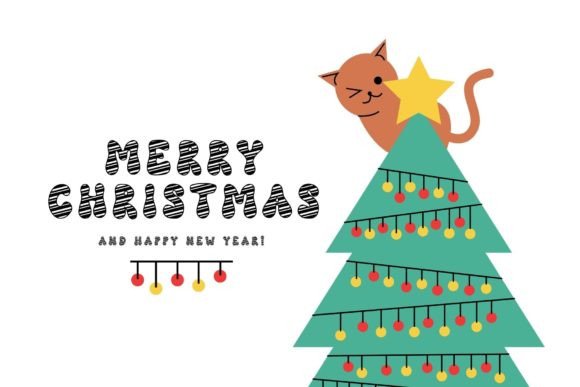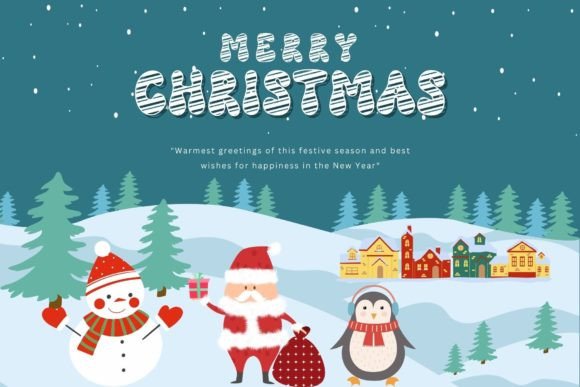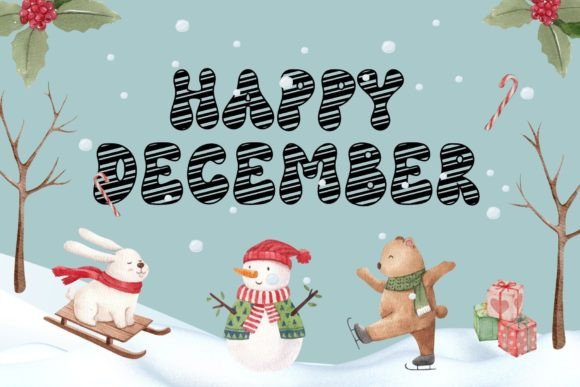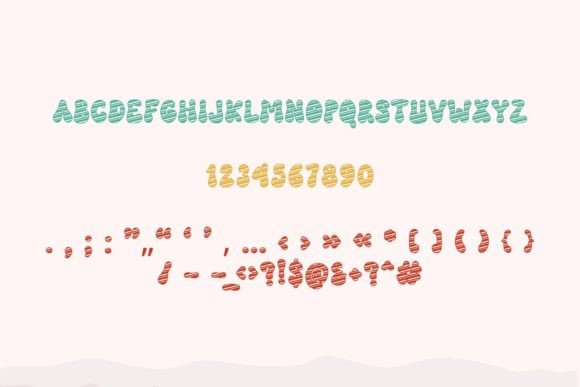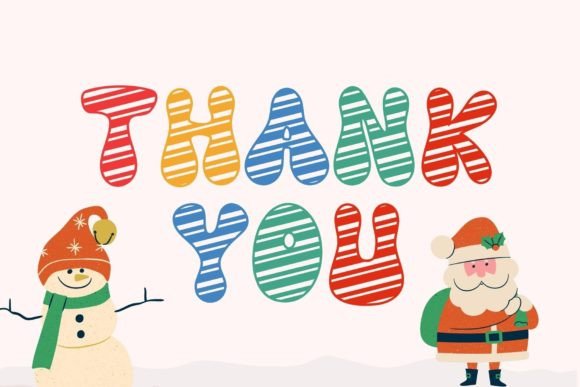
The Sweetest Christmas Font: A Groovy Candy Review
It’s the most wonderful time of the year – and as designers, crafters, and creative hobbyists, we’re probably knee-deep in holiday projects. I’m no exception. I recall a particularly stressful design session last December, frantically searching for the perfect Christmas font to match my client’s festive brand. That’s when I stumbled upon Groovy Candy, a cute Christmas decorative font that instantly brought joy and playfulness to my designs.
Groovy Candy embodies the perfect blend of playfulness and authenticity, making it an excellent choice for a wide range of projects. Here’s what I love about this charming font:
- ✨ Adorable and festive design: Groovy Candy’s unique style is sure to add a touch of holiday magic to any project.
- ✅ Highly versatile: From blog posts and logos to invitations and planners, this font adapts seamlessly to various design needs.
- 🎉 Easy to read: Despite its decorative nature, Groovy Candy remains clear and legible, even at smaller font sizes.
Now, let’s talk about a few quirks:
- 🤔 Limited use outside of holiday themes: While Groovy Candy is perfect for Christmas and winter-related projects, it might not be the best fit for other seasons or non-festive designs.
- ⚠️ Some glyphs may require manual adjustment: Depending on the platform you’re using, you might need to tweak certain glyphs or stylistic alternates to achieve the desired look.
The Story Behind Groovy Candy: A Designer Inspiration
Groovy Candy was born from a designer’s passion for festive and playful typography. Inspired by the nostalgia of childhood holidays and the joy of creating something magical, the font’s creator aimed to craft a unique and captivating design that would bring happiness to designers and their audiences alike.
| Font Name | Groovy Candy Font |
| Author | Brown Cupple Fonts |
| Is Groovy Candy suitable for body text? | While Groovy Candy is primarily designed for decorative use, it can be used for short paragraphs or captions. However, for longer body text, a clearer font might be more suitable. |